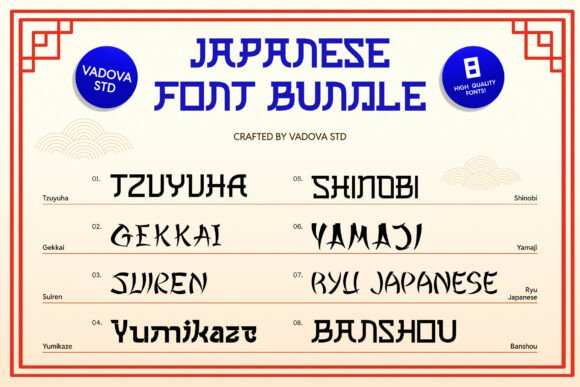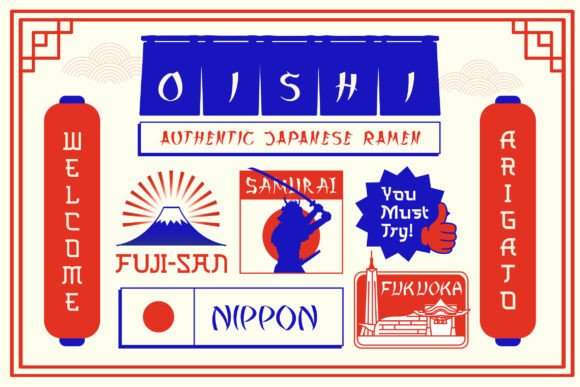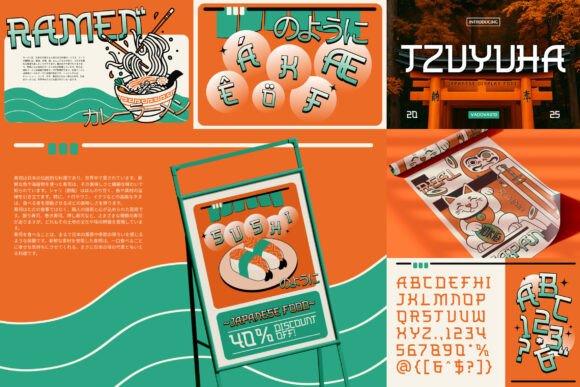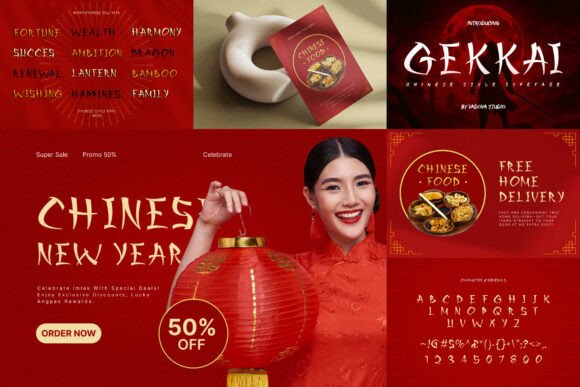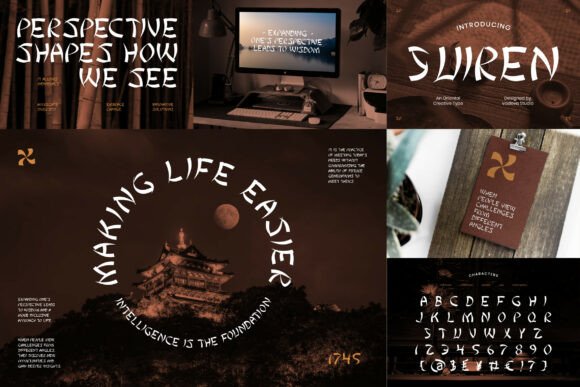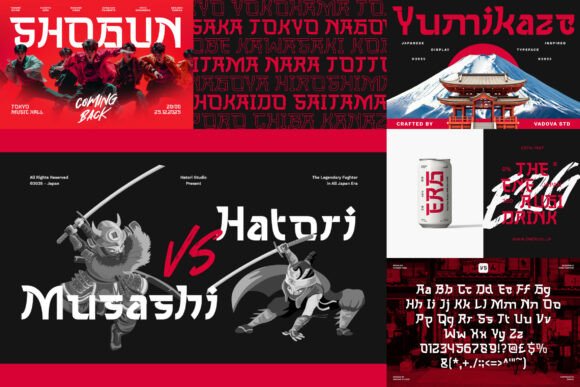
Introduction to Japanese Bundle Font
Have you ever found yourself stuck in a creative rut, searching for the perfect font to bring your design to life? As a designer, you know how crucial typography is in setting the tone and mood of a project. And when it comes to capturing the essence of Japanese culture, it can be a challenge to find the right font that balances tradition with modern flair. That’s where the Japanese Bundle Font comes in – a curated collection of high-quality fonts that will elevate your design to the next level.
Whether you’re working on a branding project, creating a poster for a cultural event, or designing a game with a Japanese theme, this bundle is a game-changer. With its bold strokes, sharp forms, and expressive character shapes, the Japanese Bundle Font is the perfect design resource for any creative project. And the best part? You can download it for free, complete with transparent background and high-quality graphics, making it a valuable addition to any designer’s toolkit.
So why settle for a generic font when you can make a statement with the Japanese Bundle Font? This bundle is a must-have for designers who want to add a touch of Japanese flair to their projects. With its unique blend of traditional and modern styles, it’s the perfect way to add some visual drama and personality to your designs.
Key Features of Japanese Bundle Font
- High-quality, professional font set designed for creative projects, ideal for use in various design resources, including logos, posters, and graphics.
- Features a unique, modern Japanese-inspired design aesthetic, perfect for adding a touch of Eastern flair to your creative project.
- Perfect for designers, artists, and creatives working on a variety of projects, from branding and marketing materials to graphic novels and manga-inspired art.
Honest Review: Japanese Bundle Font
I recently had the chance to work with the Japanese Bundle Font, and I must say it’s been a game-changer for my creative projects. This high-quality font bundle offers a range of unique and authentic Japanese characters, making it a fantastic design resource for anyone working on a project that requires a touch of Eastern flair.
What works well with the Japanese Bundle Font is its versatility and customization options. You can easily mix and match the various characters to create a look that suits your project’s tone and style. The transparent background feature also makes it easy to integrate the font into your designs without worrying about background distractions.
- ✨ High-quality characters with precise details
- ✨ Transparent background for seamless integration
- ✨ Customizable and versatile design
Overall, I’m really impressed with the Japanese Bundle Font, and I would definitely recommend it to designers working on creative projects that require a touch of Japanese flair. While there are some limitations, the benefits far outweigh the drawbacks, making it a valuable addition to any design resource collection.
Japanese Bundle Font
The Japanese Bundle Font is a high-quality design resource that offers a unique and creative way to add depth and visual interest to your projects. With a transparent background, this font is perfect for use in a variety of design applications.
For the best results, use the Japanese Bundle Font in combination with other design elements, such as graphics and textures. You can also experiment with different font sizes and colors to create a unique look.